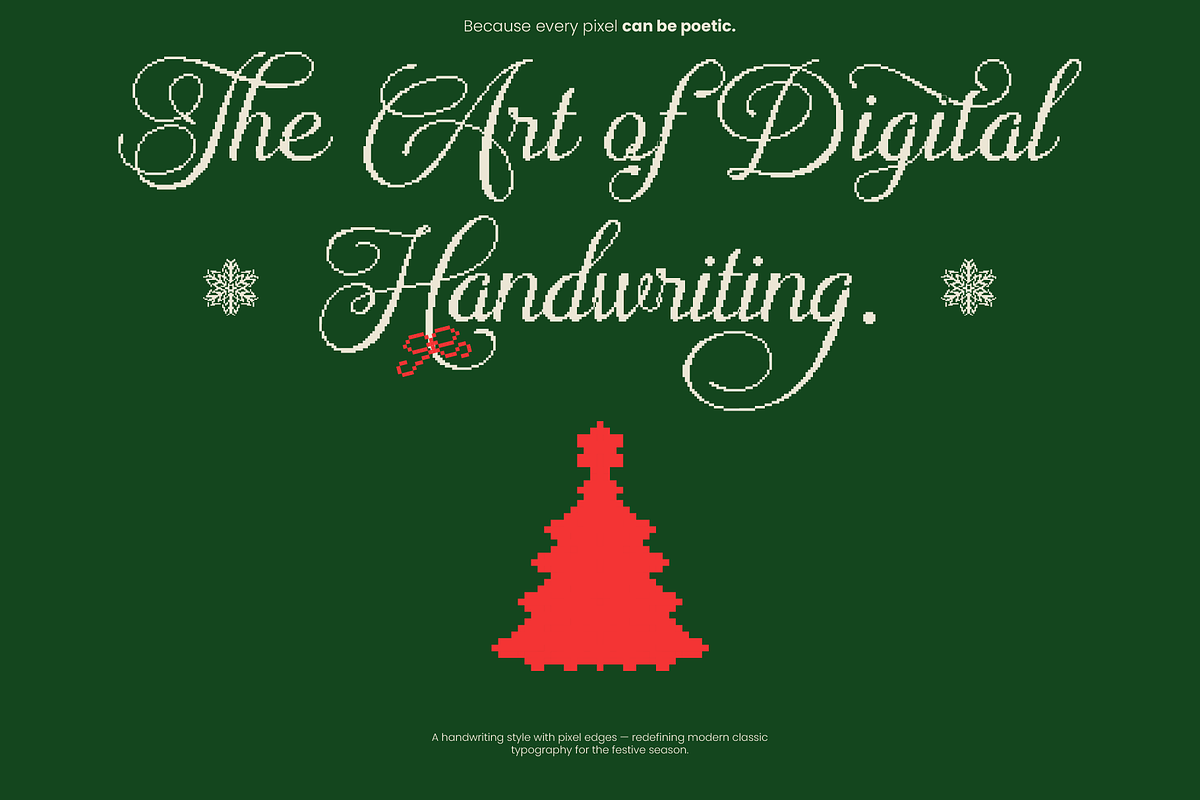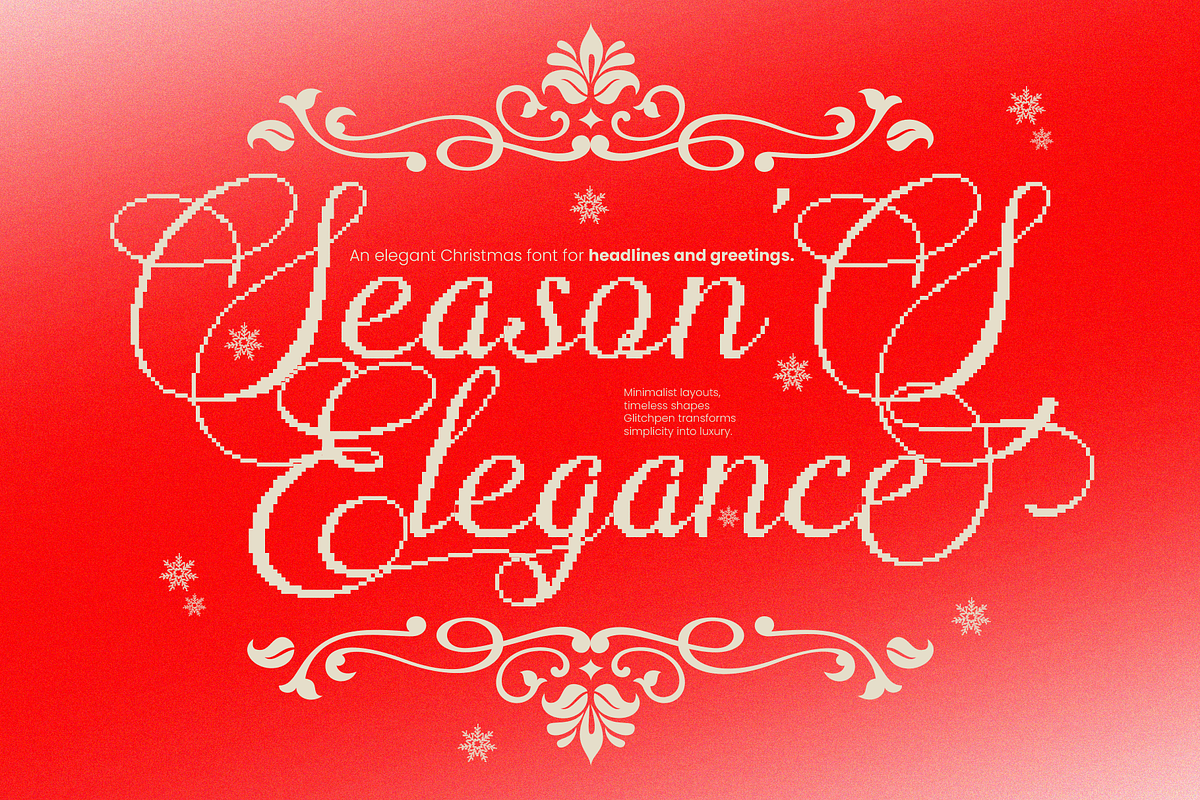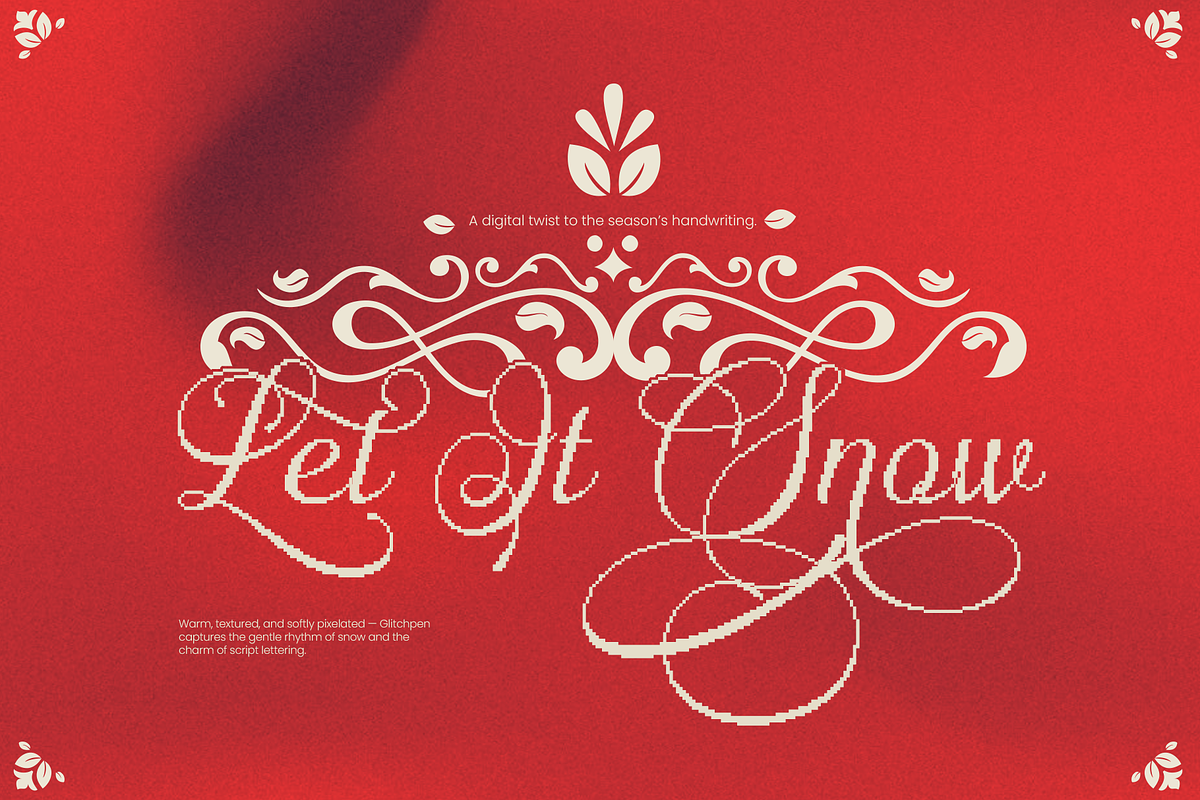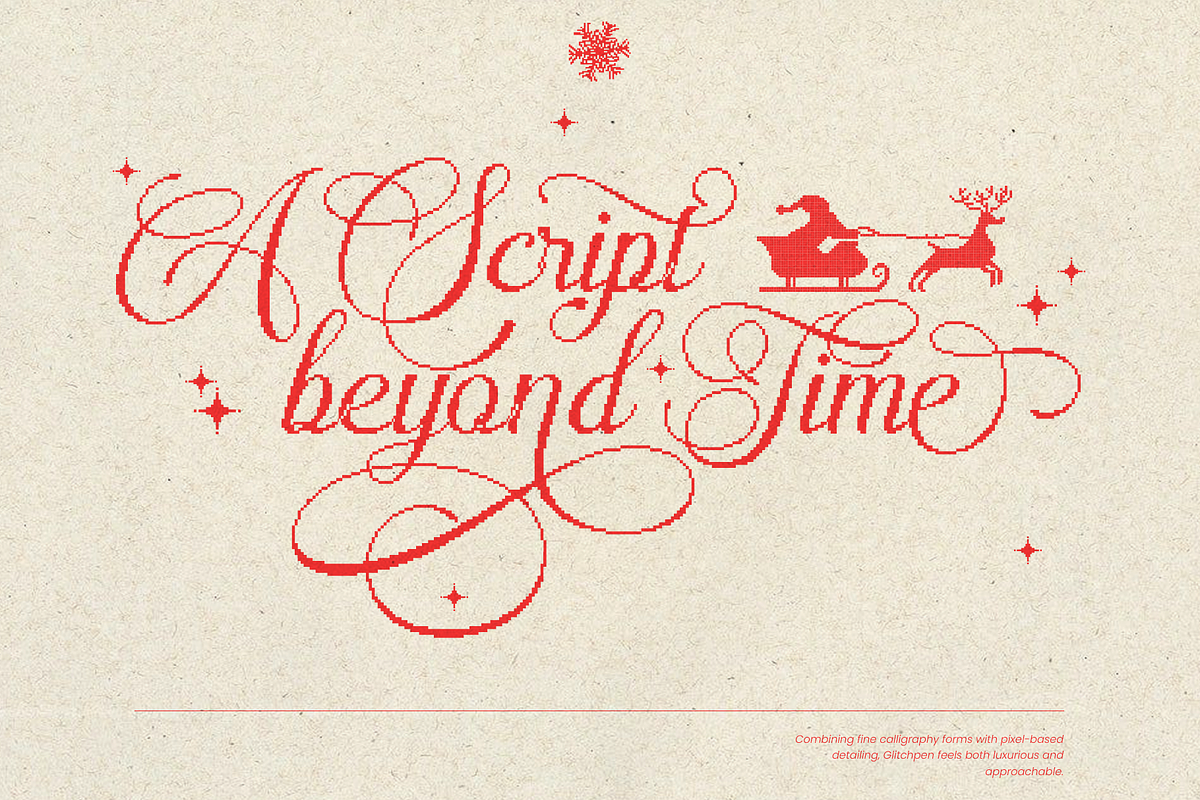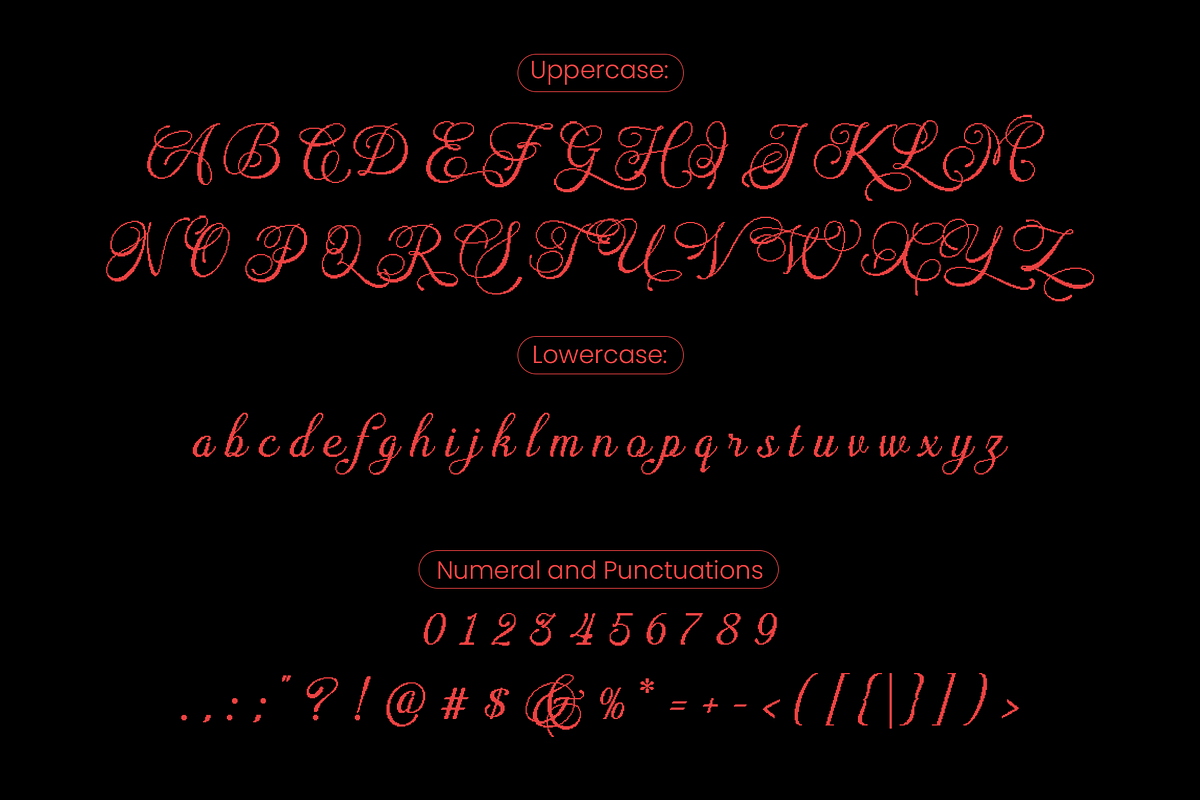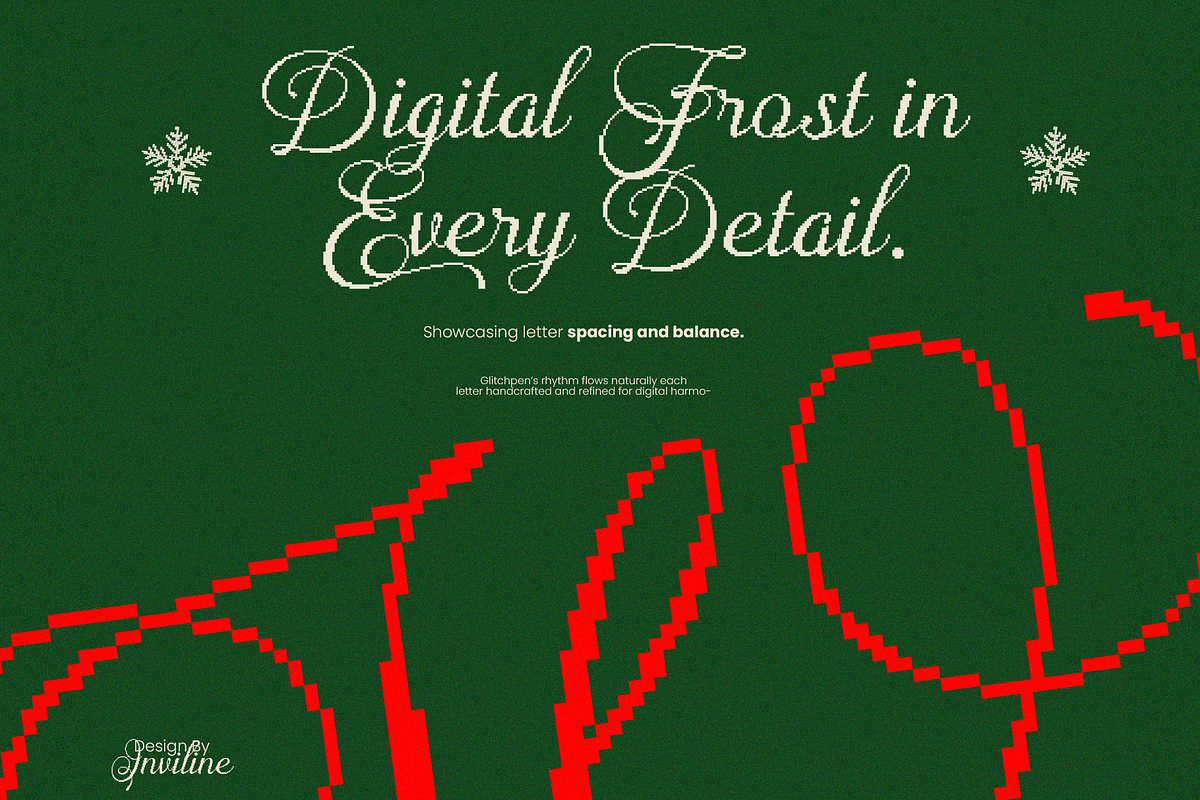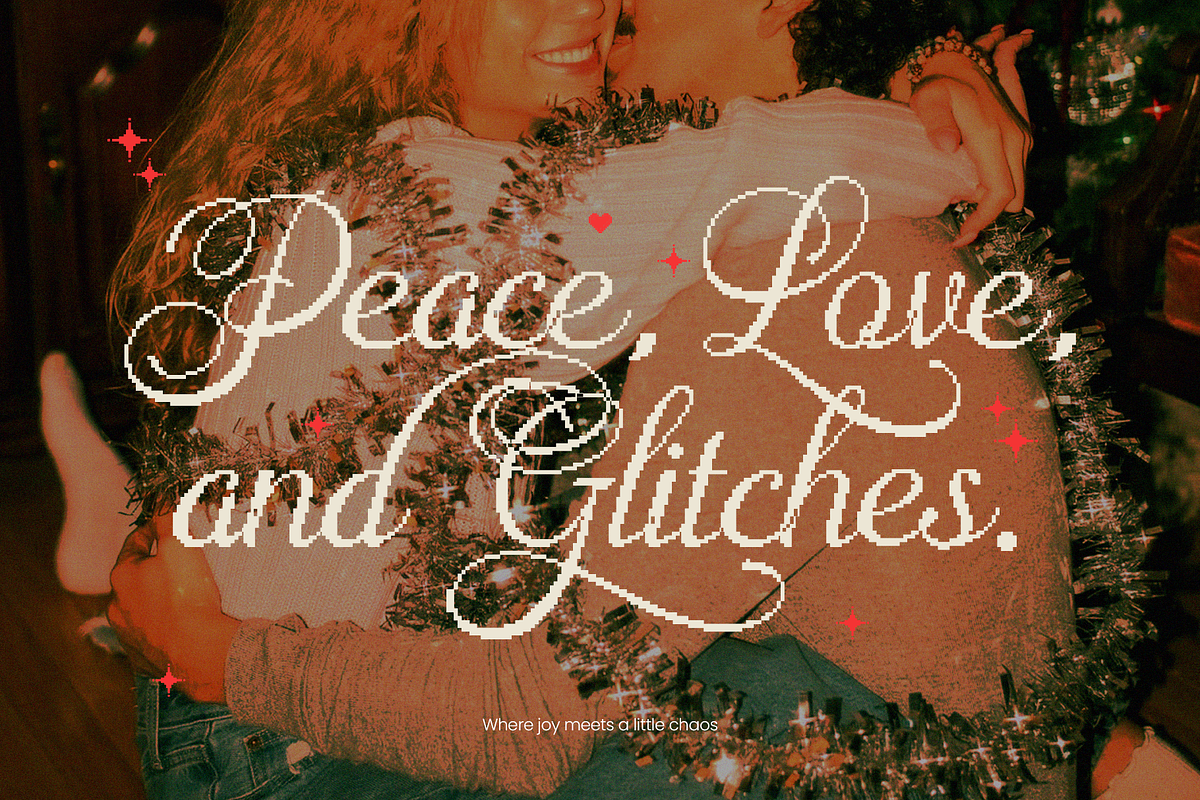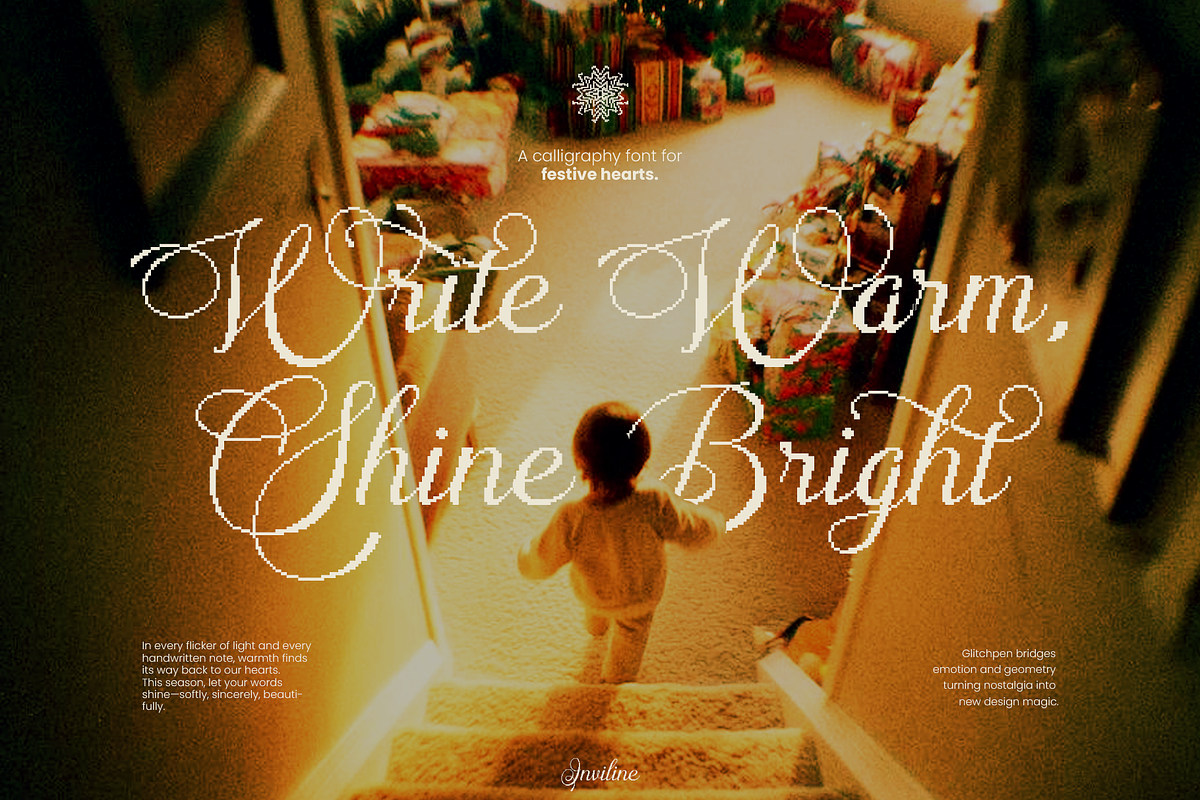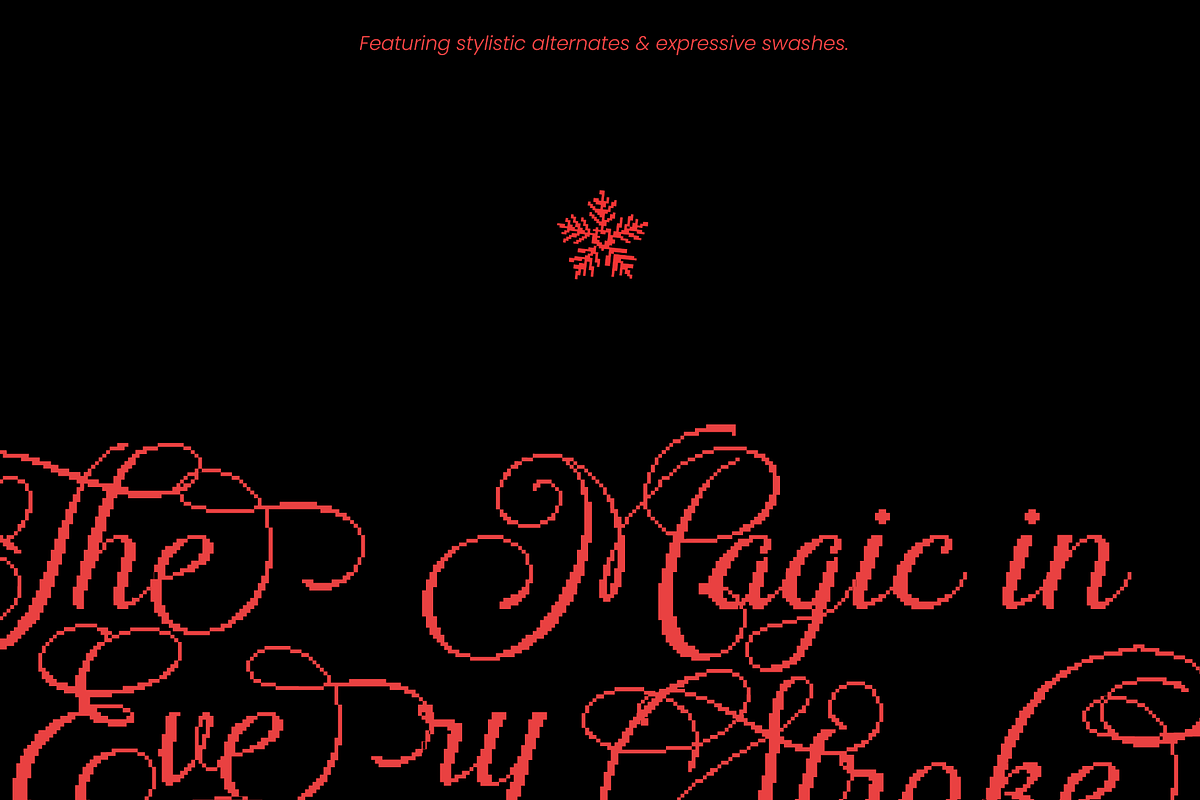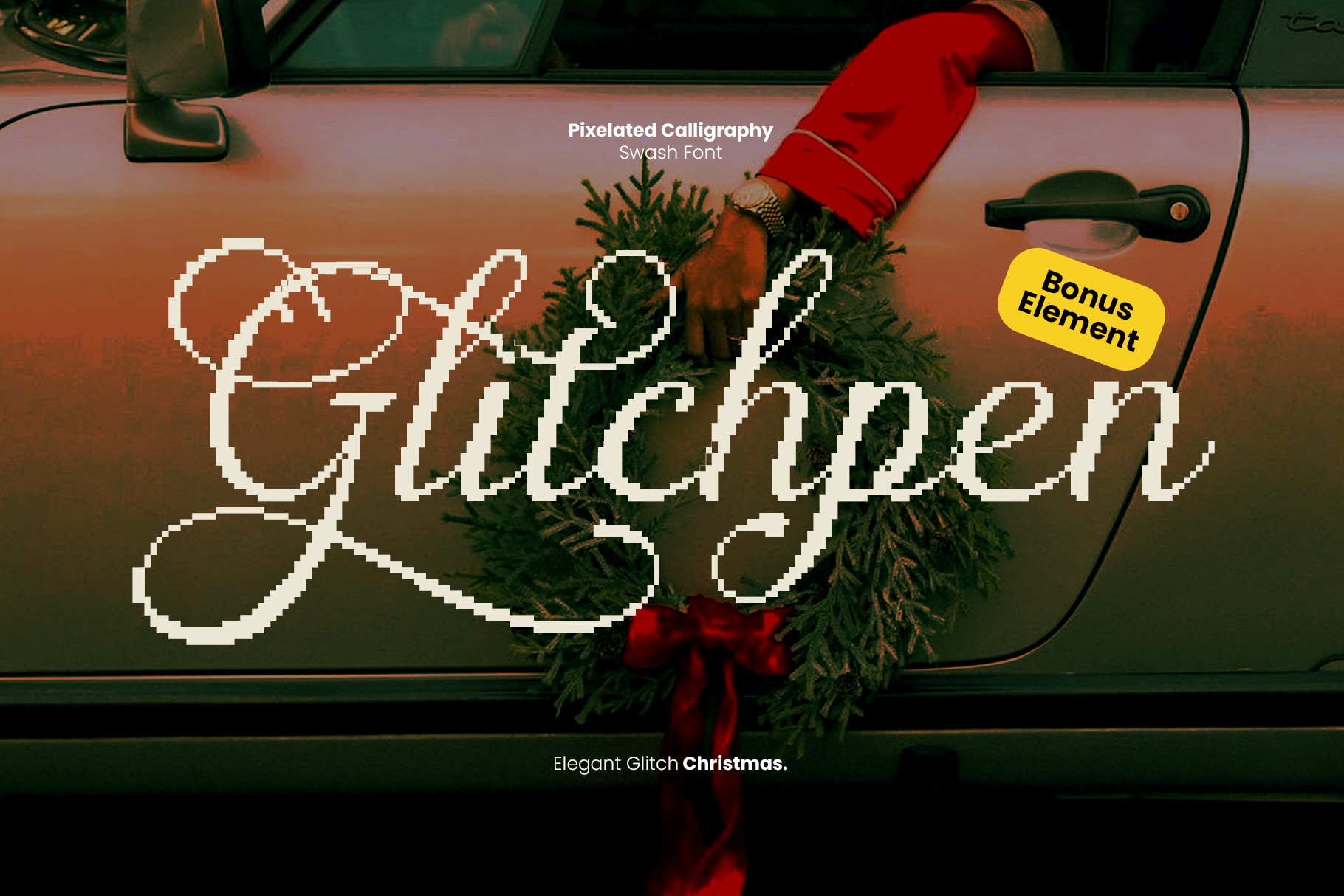
Glitchpen - Pixelated Swash Font
Glitchpen is a festive pixelated swash font that fuses elegant calligraphy with digital quirk. Inspired by vintage scripts and pixel art, it’s designed to evoke warmth, nostalgia, and glitchy charm. Perfect for Christmas themes. Featuring stylistic alternates, expressive swashes, and bonus elements, Glitchpen adds handcrafted rhythm to your holiday cards, brand visuals, and creative displays—where timeless handwriting meets pixel-perfect imperfection.
- Pixelated calligraphy style
- Numerals & punctuation
- Alternates & expressive swashes
- Carefully spaced for digital harmony
- Bonus graphic elements
- Holiday & Christmas cards
- Festive branding projects
- Retro-themed posters
- Pixel art design
- Elegant glitch aesthetics
- Creative greeting headlines